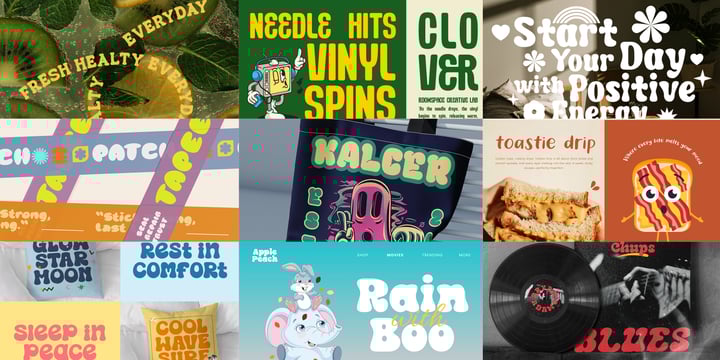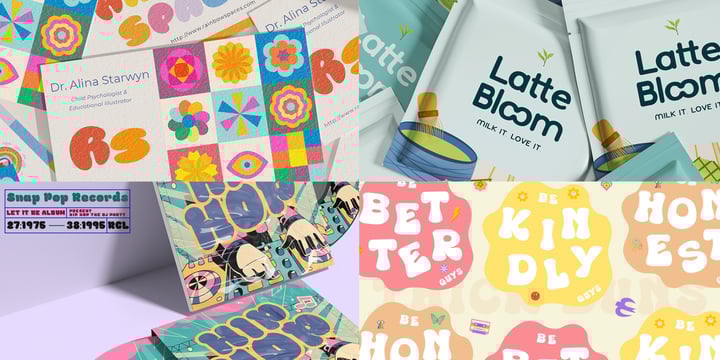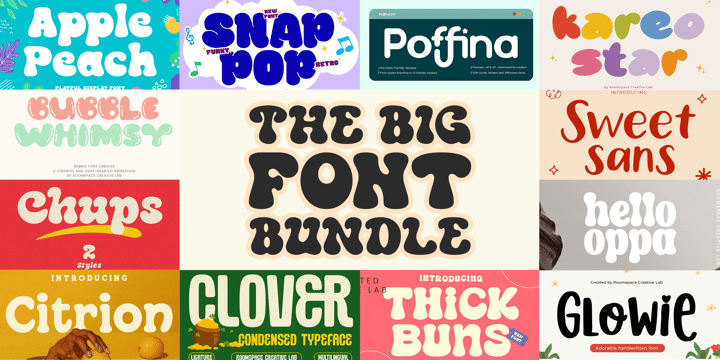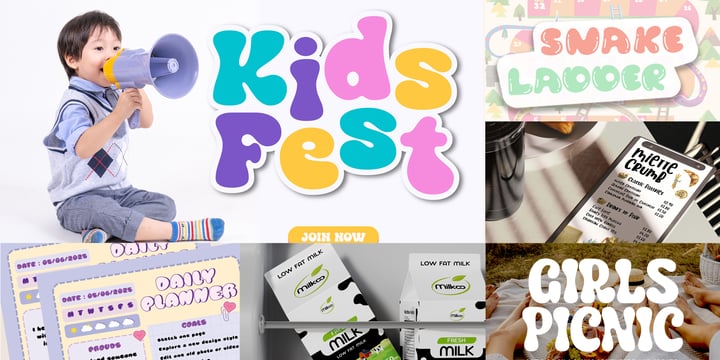
The Big Font Bundle
The Big Font Bundle is a vibrant collection of 14 playful and expressive display fonts created by Roomspace Creative Lab. Designed to spark joy and visual impact, each font features bold shapes, soft curves, and friendly personalities that instantly stand out. From bubbly lettering and chunky forms to sweet handwritten styles, this bundle is perfect for designers who want to create eye-catching, fun, and approachable visuals without sacrificing quality. Whether you’re working on kids projects, colorful branding, packaging, social media, or cheerful headlines, this bundle gives you everything you need in one playful collection.